20 Charming Vintage Font Bundles to Spice Up Your Commercial Projects
Even with the rising trend of futuristic and tech themes in visual designs, vintage font still retain its charm. Inspired by the classy, elegant designs from the past, these fonts add unique elements to any projects. A great element to make your commercial projects more distinctive!
This font bundle offers multiple vintage fonts with unique styles, from elegant to strong and quirky. Here are 20 great vintage fonts you can get from a bundle, perfect for personal and commercial projects.
1. Bandits
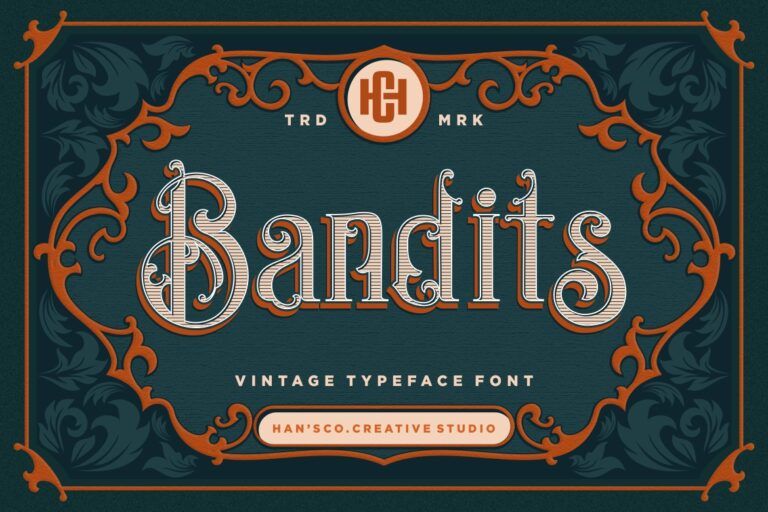
Bring a cool trompe-l’œil element into your design with Bandits, a vintage font with beautiful ornamented lines. True to its namesake, the font has a subtle 3D look, making it instantly noticeable. A perfect distinctive font for designing brand labels, shirts, cover arts, merchandises, and many more.
2. Blue Spirits
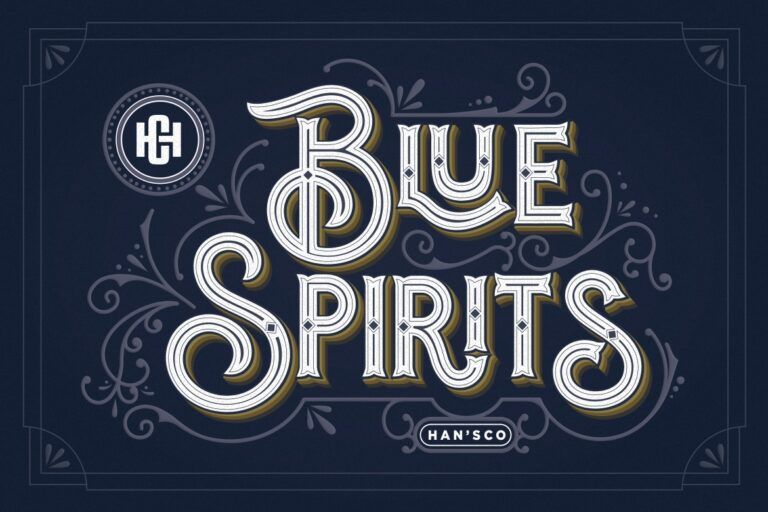
Blue Spirits is a gorgeous ornamental vintage font with a classy silhouette. Its basic version has ribbon-like strokes with good readability, making it an ideal font for a logo. You can also use Blue Spirits to design printed merchandise, labels for “classy” brands, and book or album covers.
Blue Spirits come with both standard and alt versions, complete with additional ornaments; perfect for adding sophistication into your design. With standard punctuations and characters plus multiple size options, Blue Spirits add a sophisticated vintage charm to your designs.
3. Carglos
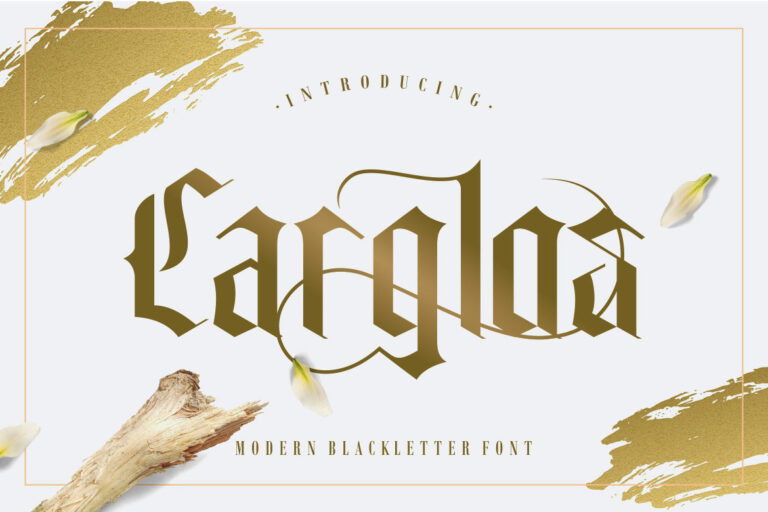
Create a strong statement with Carglos, a blackletter-type font with bold strokes and distinctive glyphs. The pointed angles remind you of the Gothic aesthetic, giving your designs delightfully “dark” elements.
Carglos is perfect for making labels, logos, and other commercial designs that require text-based centers. You can also accompany a beautiful digital painting or make digital album art with this font.
4. Graphite
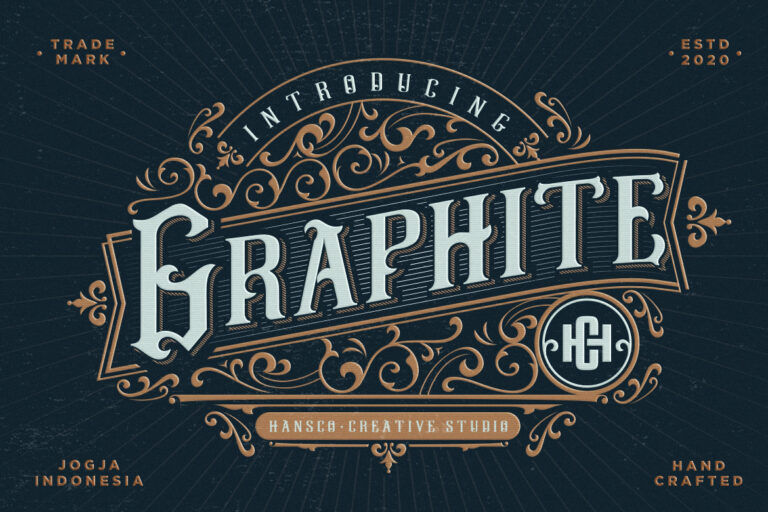
Inspired by the charming old-timey signboards, Graphite offers a classy layered font with ornamented details. This quirky vintage font has distinctive edges, curves, and angles; perfect for designing brand labels, logos, merchandises, and digital arts.
Graphite’s layered style gives it a 3D look, with several unique variations, like the inline and striped off ones. The font package also comes with decorative ornaments, which will look good on objects like tin cans, glass bottles, and decorative jars. Graphite is great to advertise fashion items, stickers, canned food, beverages in vintage bottles, and such.
5. Montern
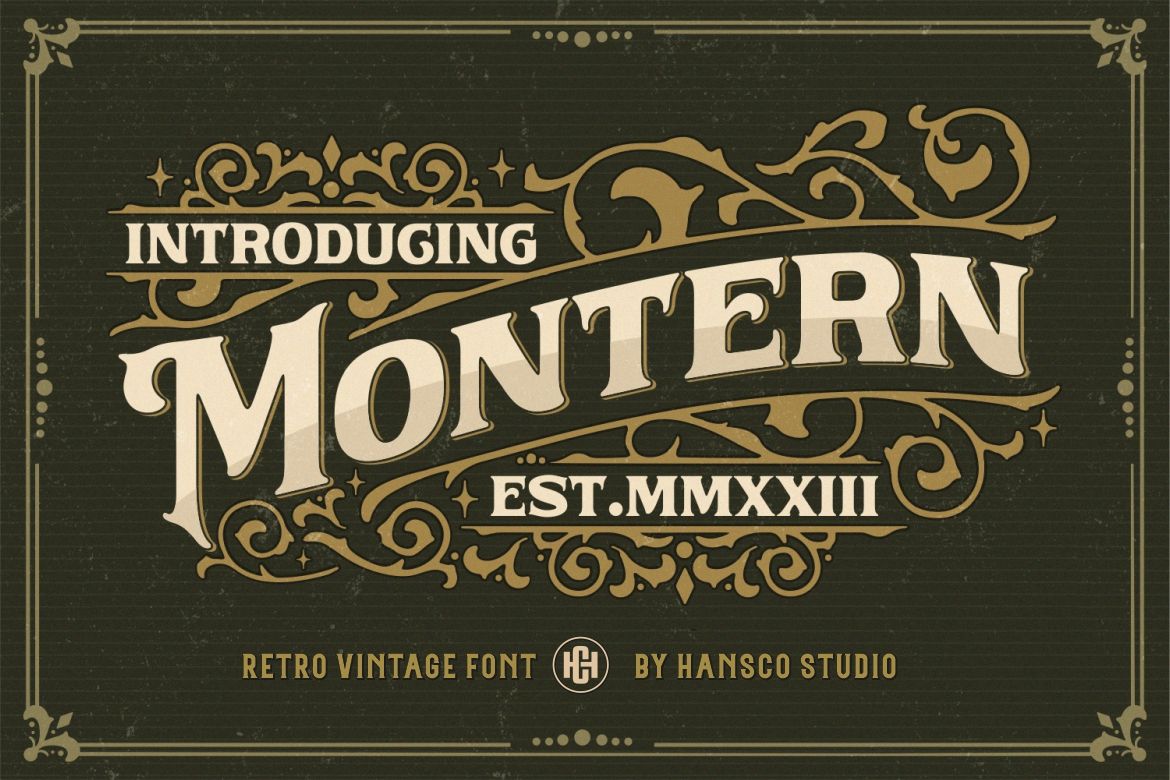
Sharp and strong Montern is what you need to create a visual statement. Inspired by bold, old-school lettering, Montern combines sharp angles with subtle sway on its bold strokes. The result is a typeface with unique character while maintaining readability.
You can use Montern to design a brand campaign, from fashion to barbershop and beverages. Montern comes with different glyphs, standard characters, and punctuations for your design needs. Its ornamented glyph has even sharper edges that adds a little Gothic flair.
Vintage fonts allow you to inject old-school charm into any designs, both personal and commercial. However, not all fonts are identical in styles and characteristics, and you need to have many options for exploring your creative sides.